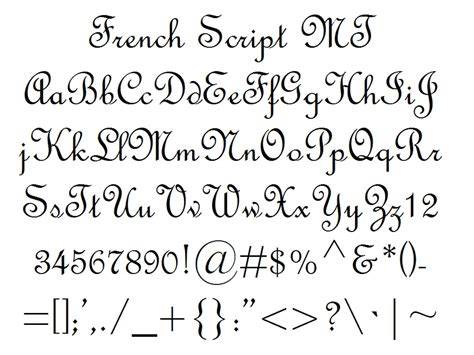
The Beauty Of French Script Fonts In 2023
It's 2023 and font trends are constantly changing, but one style of font has remained timeless: French script fonts. French script fonts are a classic typeface that adds a touch of elegance and class to any design. Whether you're creating a sleek logo, a chic invitation, or a beautiful website, French script fonts can add the perfect finishing touch. Read on to learn more about French script fonts and why they remain a popular choice.
The History of French Script Fonts
French script fonts have a long and storied history. They first started appearing in the late 19th century and were popularized by French typeface designer Deberny & Peignot. The typeface was originally designed for use in advertising, business cards, and other commercial works. It soon became popular with artists, who used the elegant script to add a touch of sophistication to their artwork. Today, French script fonts are used in a variety of projects, from logos to invitations to websites.
The Benefits of French Script Fonts
French script fonts are a popular choice for a variety of reasons. First, they are versatile and can be used in a variety of projects. The script can be used to create a formal, sophisticated look, or it can be used to create a more casual, relaxed look. Additionally, French script fonts are a popular choice for web design because they are easy to read and look great on both desktop and mobile devices. Finally, French script fonts can help give a website or logo a timeless, classic look.
Using French Script Fonts in 2023
In 2023, French script fonts are a popular choice for a variety of projects, from logo design to web design. For example, French script fonts are a popular choice for wedding invitations, as they add a touch of elegance and sophistication. Additionally, French script fonts are a popular choice for web design because they are easy to read and look great on both desktop and mobile devices. Finally, French script fonts can help give a website or logo a timeless, classic look.
Tips for Choosing the Right French Script Font
When choosing a French script font, it is important to consider the project and the desired look. For example, if you are creating a logo, you may want to choose a font with a more modern, sleek look. On the other hand, if you are creating a website, you may want to choose a font with a more classic, timeless look. Additionally, it is important to consider the size and weight of the font. For example, if you are creating a logo, you may want to choose a bolder font, while if you are creating a web page, you may want to choose a lighter font. Finally, it is important to consider the kerning of the font, which refers to the spacing between each letter. Be sure to use a font with appropriate kerning for your project.
French script fonts remain a popular choice in 2023, as they can add elegance and sophistication to any project. Whether you are creating a logo, wedding invitation, or website, French script fonts can help give your project a classic, timeless look. When choosing a French script font, be sure to consider the project and the desired look, as well as the size, weight, and kerning of the font. With these tips, you will be sure to find the perfect French script font for your project.